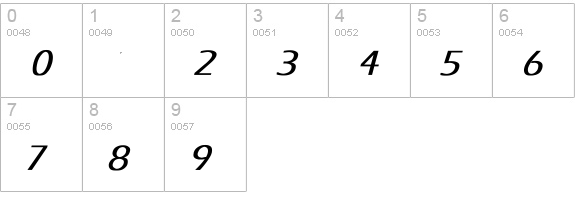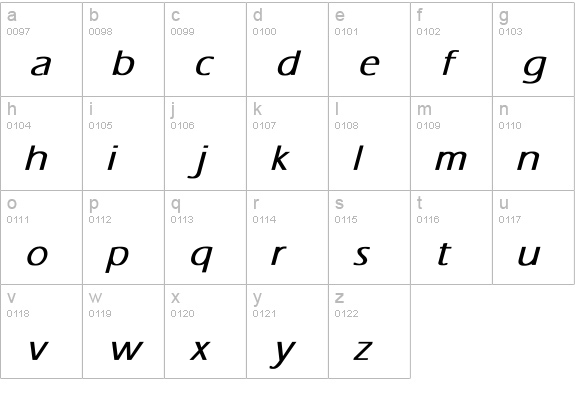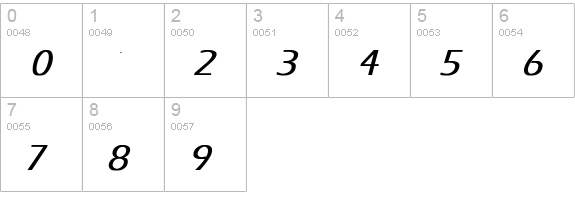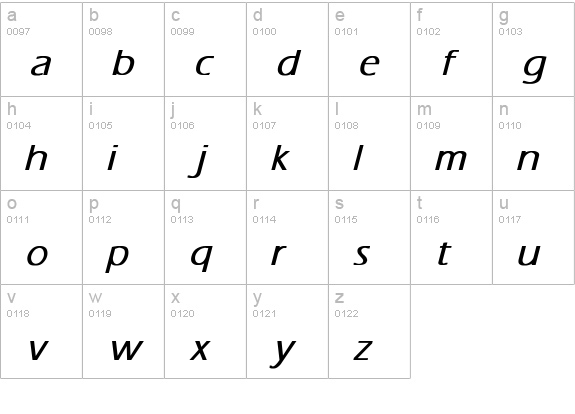
Tili Bold Italic Font Details
Tili Bold Italic is a strong, high-contrast, italic variant in the Tili typeface family \xE2\x80\x94 well suited to headlines, attention-grabbing titles, and strong calls-to-action.
Introducing Tili Bold Italic font, a stunning typographic masterpiece designed to elevate your designs to new heights of sophistication and elegance. With its bold and italicized form, Tili Bold Italic effortlessly combines strength and style, making it the perfect choice for projects that demand attention and make a bold statement. This font exudes a sense of confidence and modernity, capturing the essence of contemporary design trends. Its clean lines and sleek curves create a harmonious balance, ensuring that each letter flows seamlessly into the next, resulting in a visually captivating composition. Tili Bold Italic is not only visually striking but also incredibly versatile. Whether you're designing a logo, creating a headline, or crafting a poster, this font will add a touch of flair and professionalism to your work. It effortlessly adapts to various design themes, making it suitable for a wide range of projects. But what truly sets Tili Bold Italic font apart is that it is freely available to download at FontsMarket.com. Yes, you read that right - this exceptional font can be yours without any cost! FontsMarket.com is a trusted source for high-quality fonts, and they are generously offering Tili Bold Italic to all design enthusiasts and professionals alike. So why wait? Take advantage of this incredible opportunity to enhance your designs with Tili Bold Italic font. Download it today from FontsMarket.com and let your creativity soar to new heights. Embark on a design journey that is both visually captivating and cost-effective, all thanks to the beautifully crafted Tili Bold Italic font.